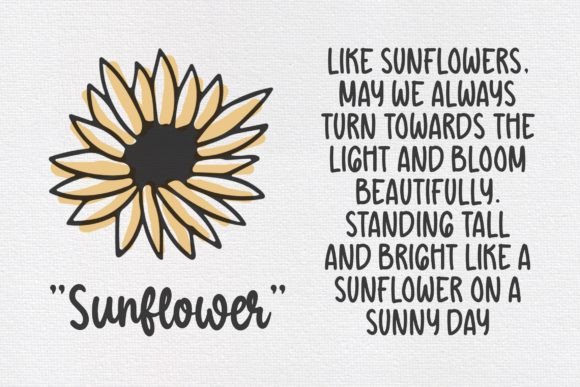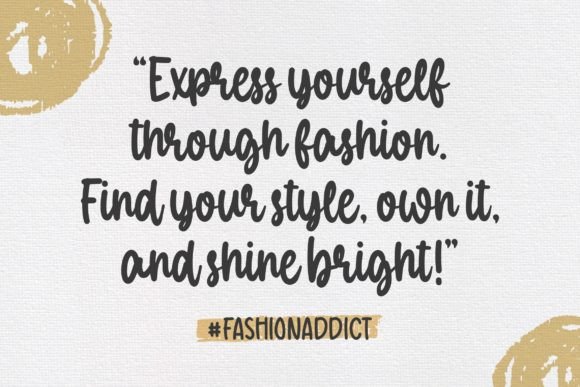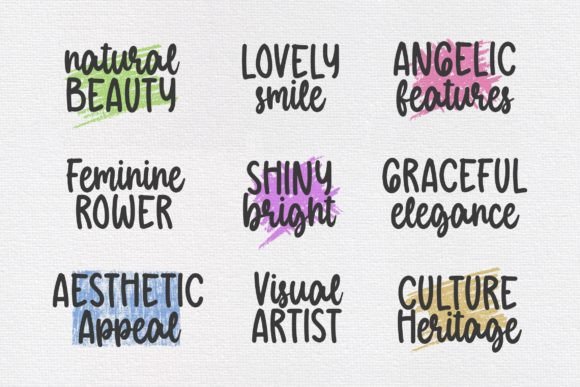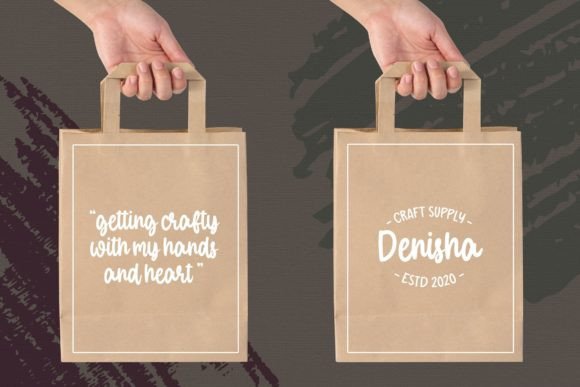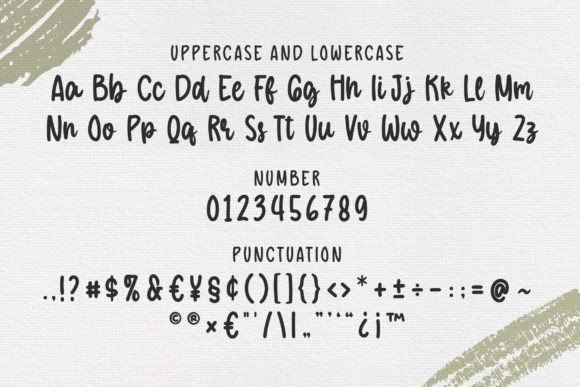
Doodle Delight Font
Introducing “Doodle Delight” a Rounded Marker Script Font! Unleash your artistic flair with this whimsical font crafted for the artisanal spirit in you. Designed for the crafting connoisseur, the handwriting aficionado, and the marker maven, “Doodle Delight” encapsulates the essence of playful strokes and handcrafted charm.